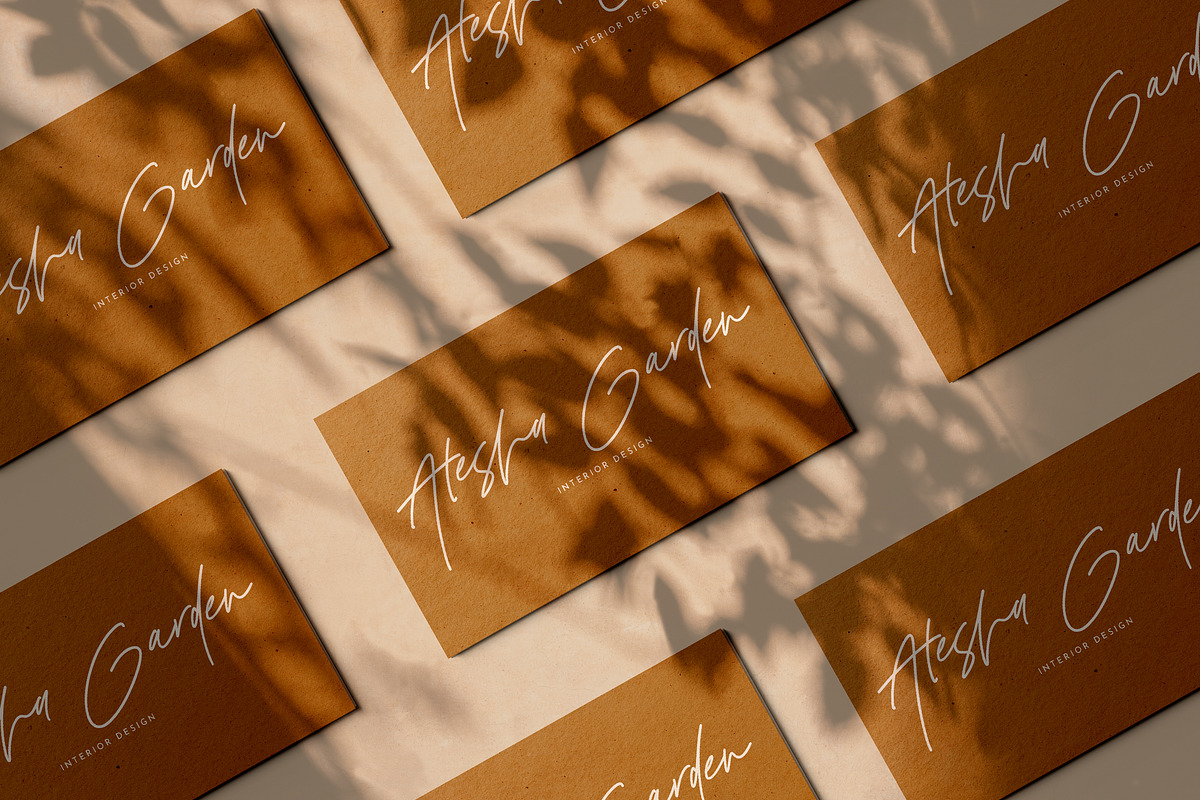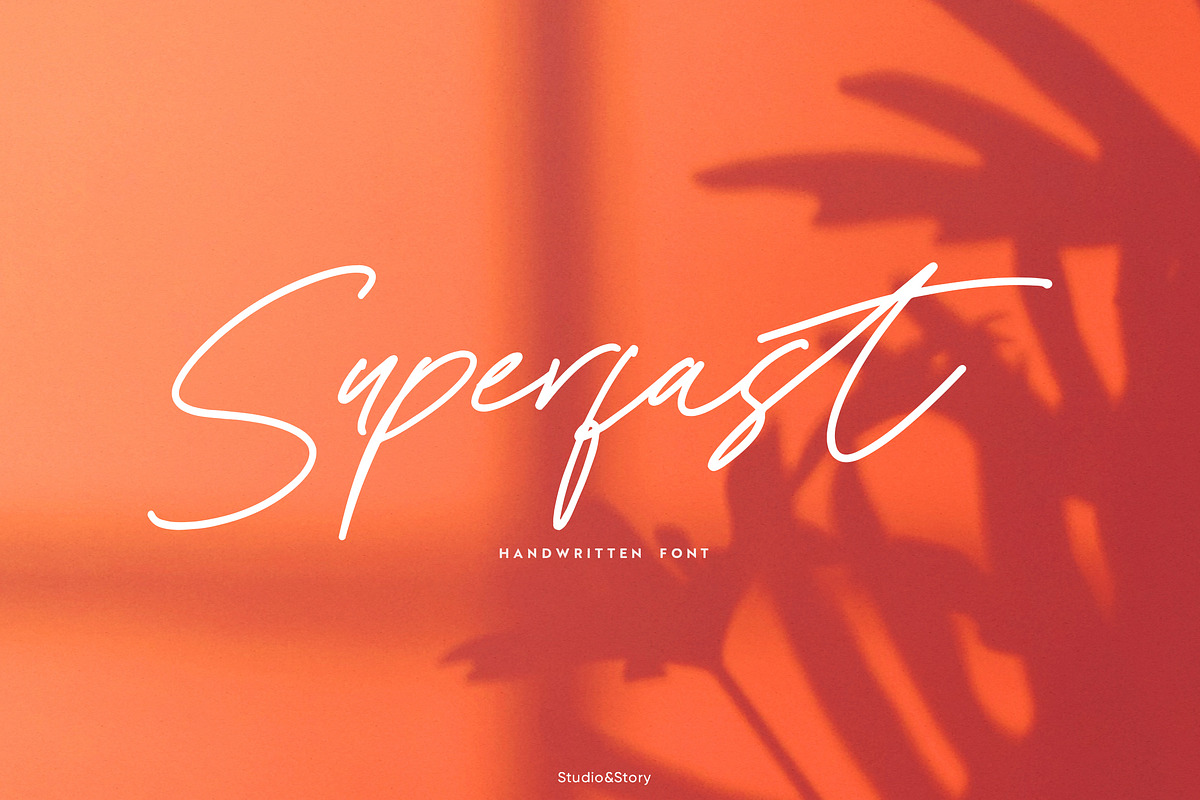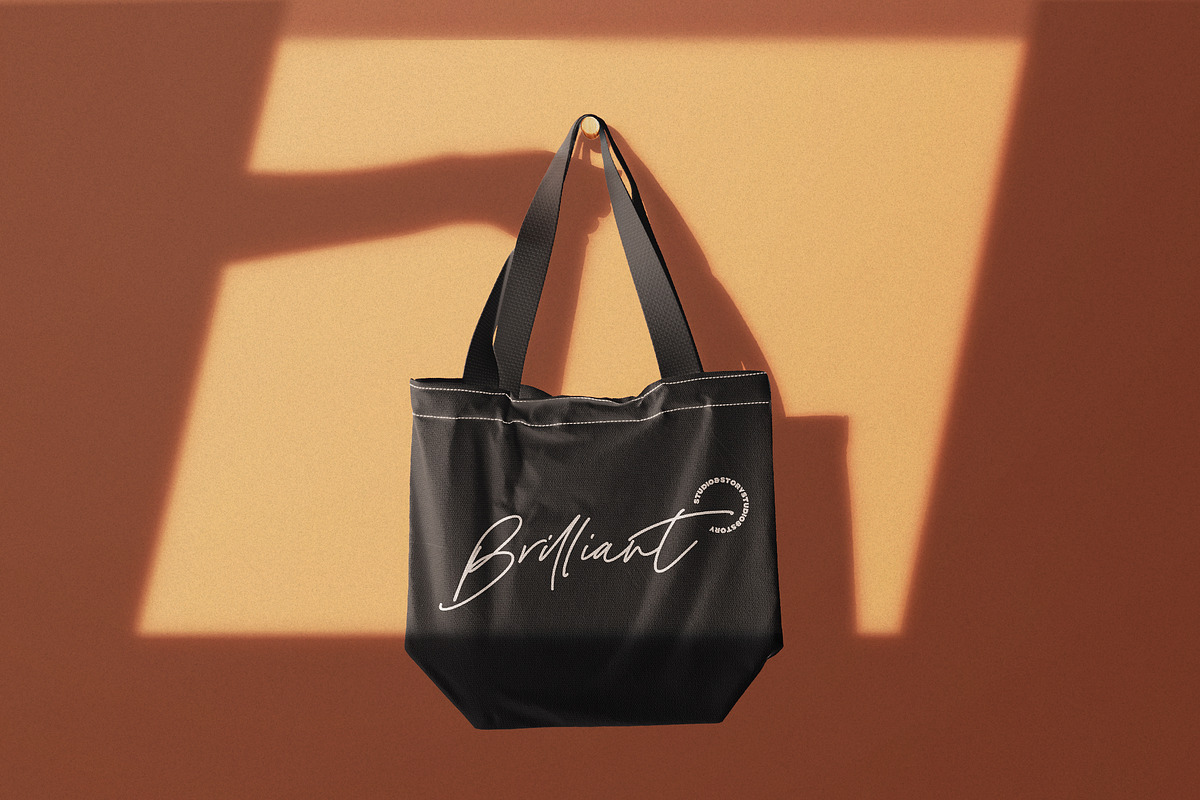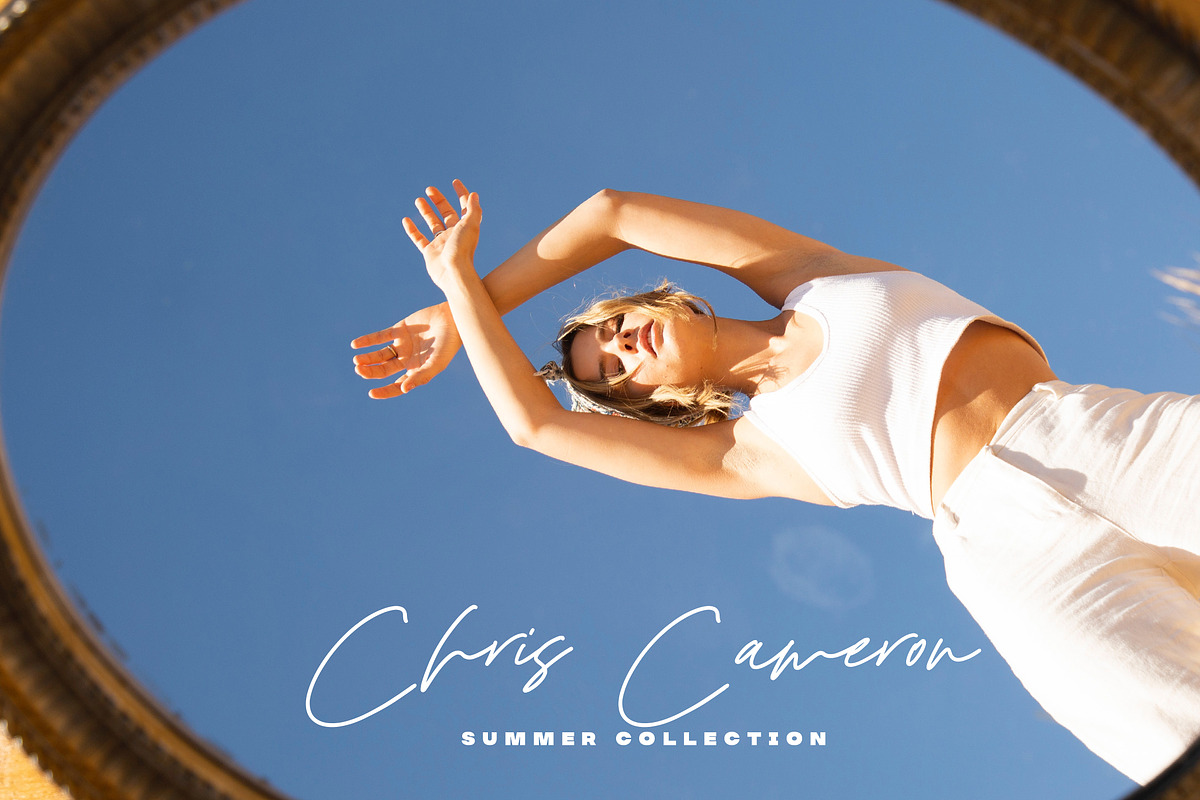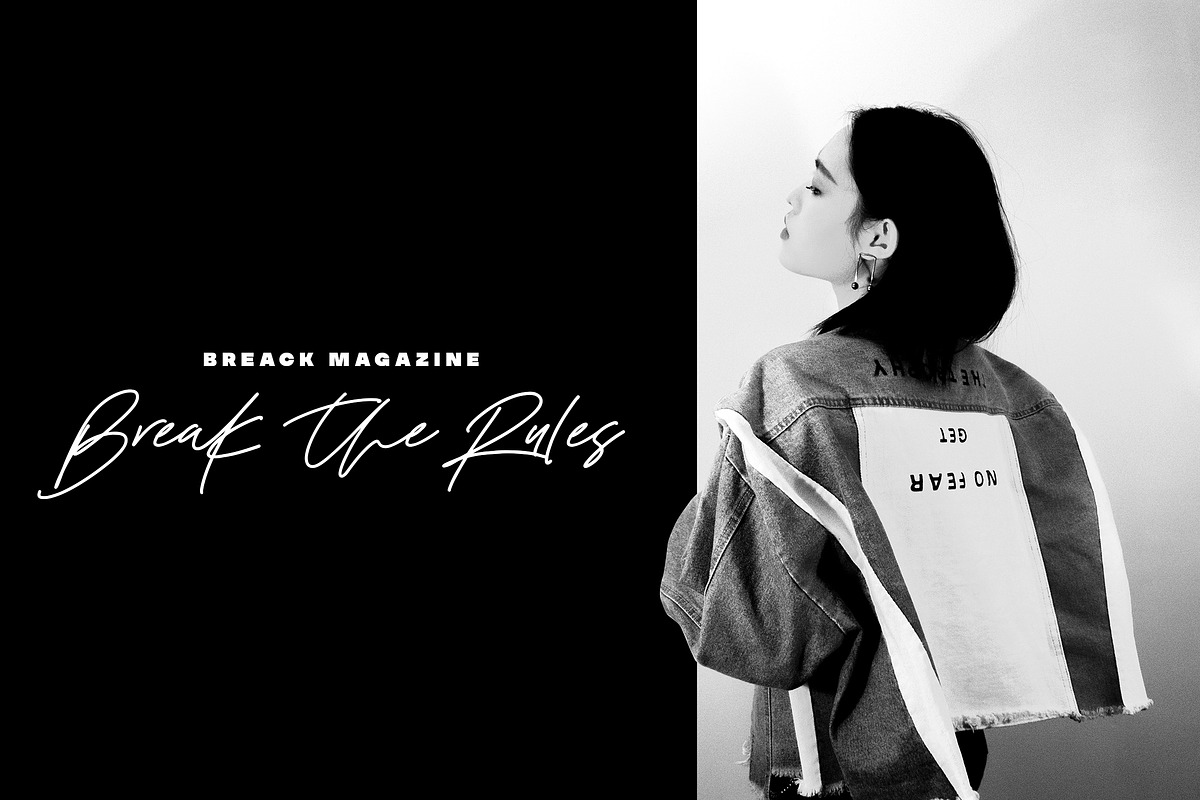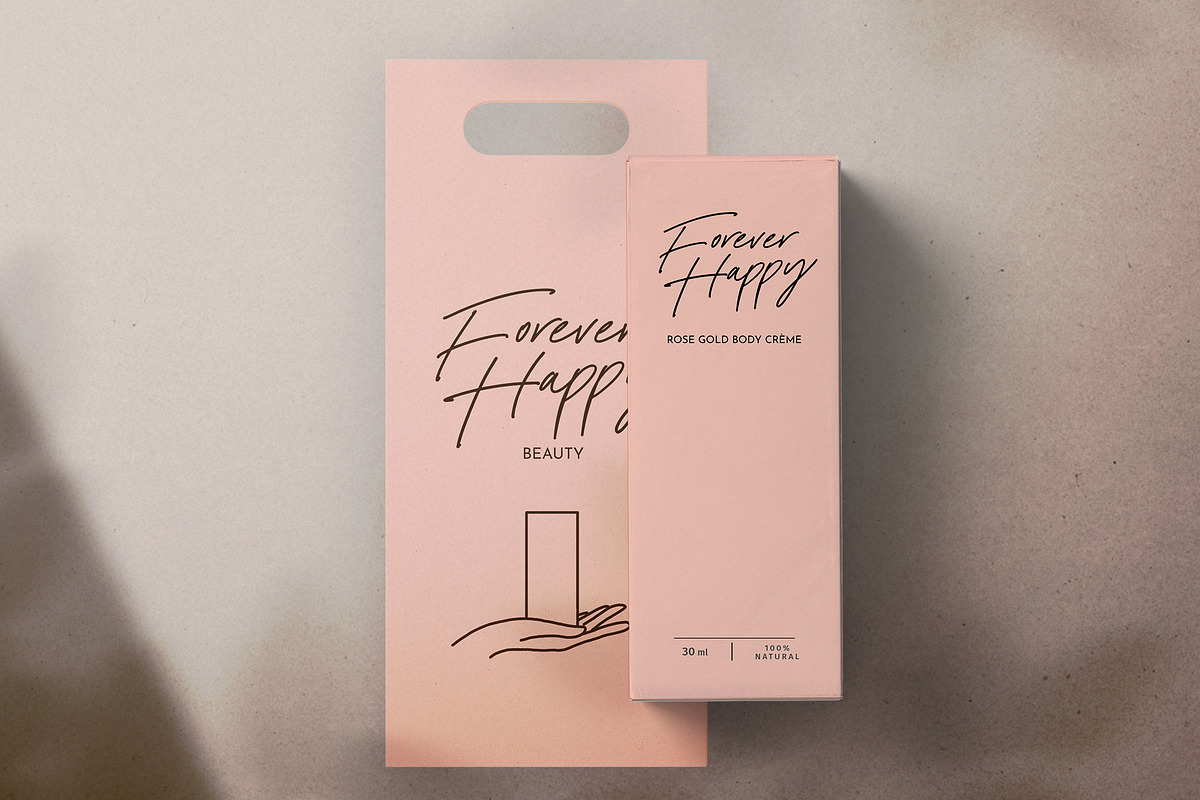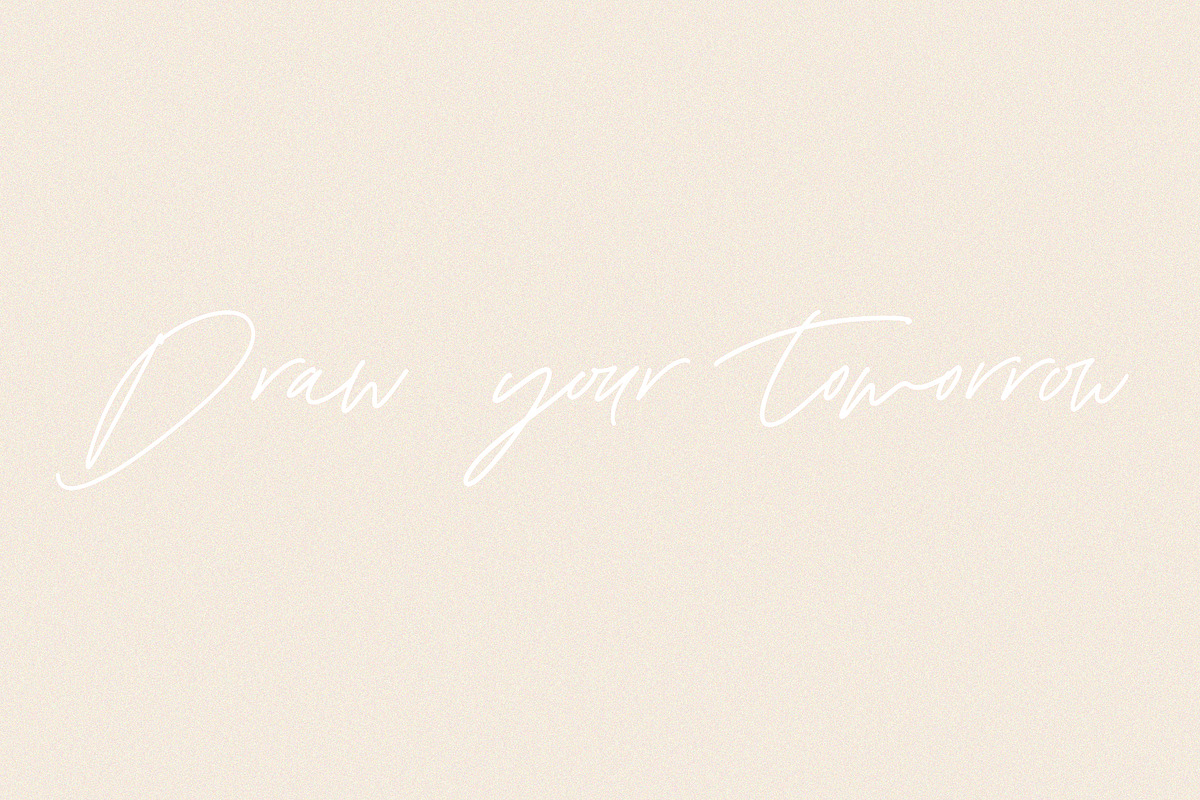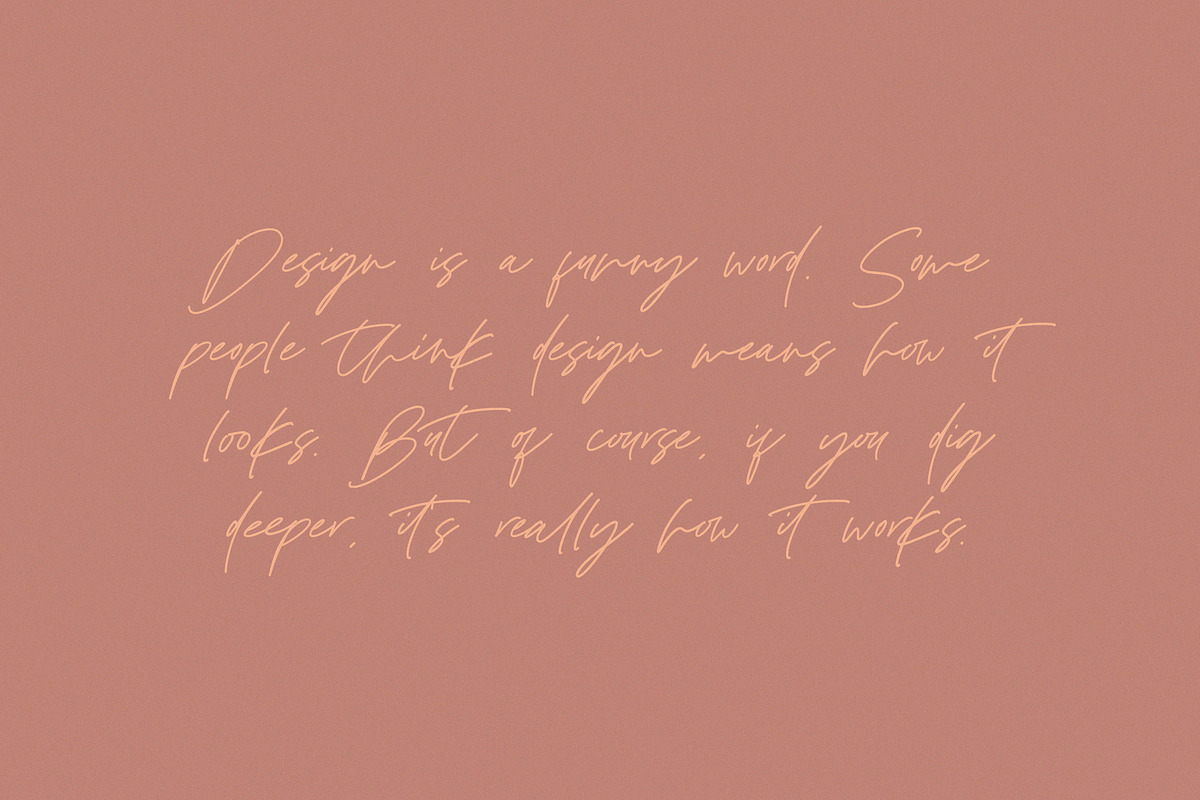
Superfast | Script Font
Superfast is a hand-written, flowing, script that will add a fast and sharp movement style to your projects. It charms you right at the beginning. If you are looking for a sensitive font that can respond to the vibe of your design, Superfast is the right choice. On the one hand it is elegant and luxurious, and on the other hand, trendy and modern.
1. Superfast • A hand-made script font containing upper & lowercase characters, numerals and large range of punctuation.
OpenType feature- 41 Ligatures which Makes everything you write authentic and flowing. And a number of Alternates.